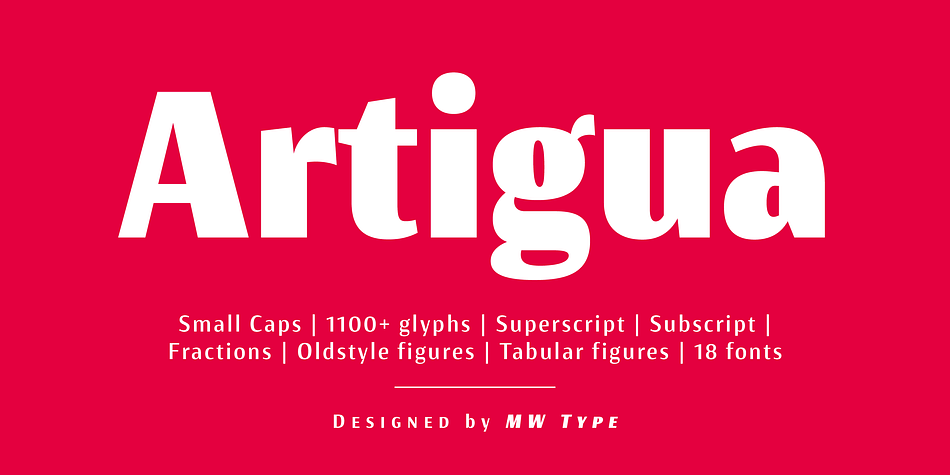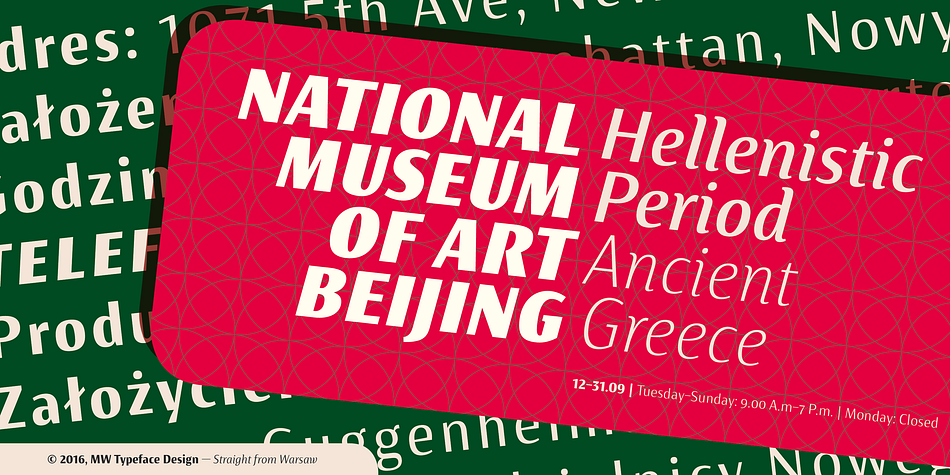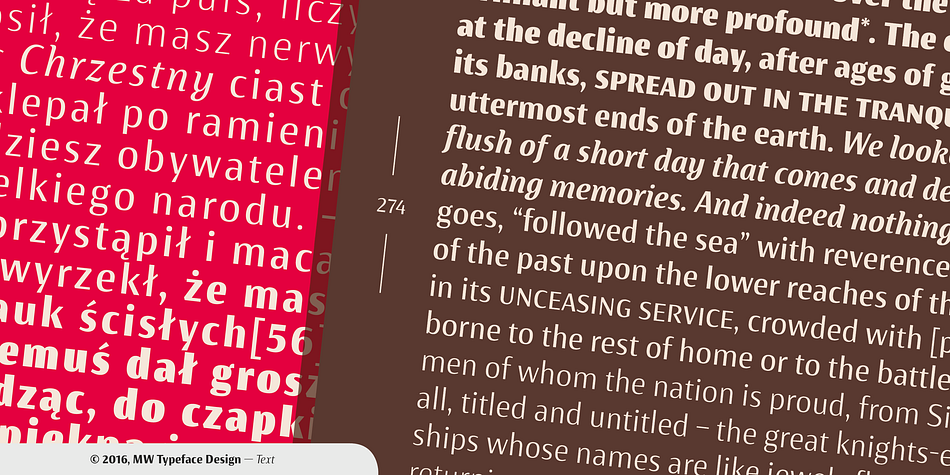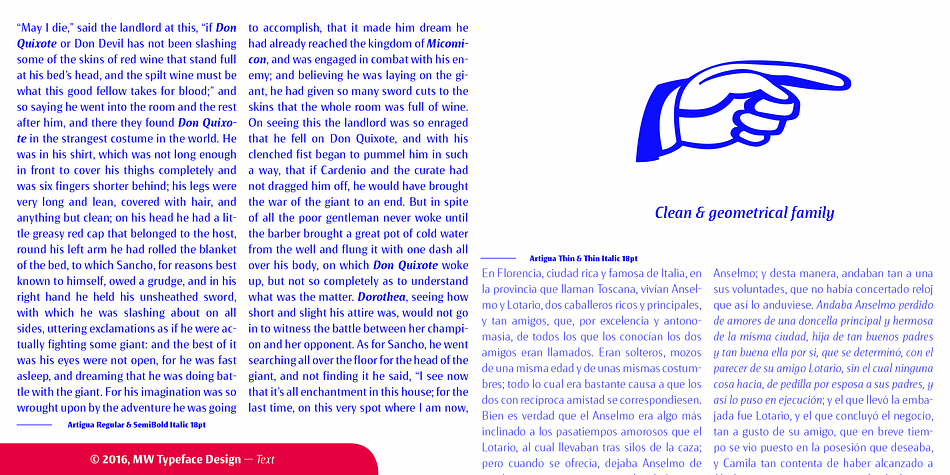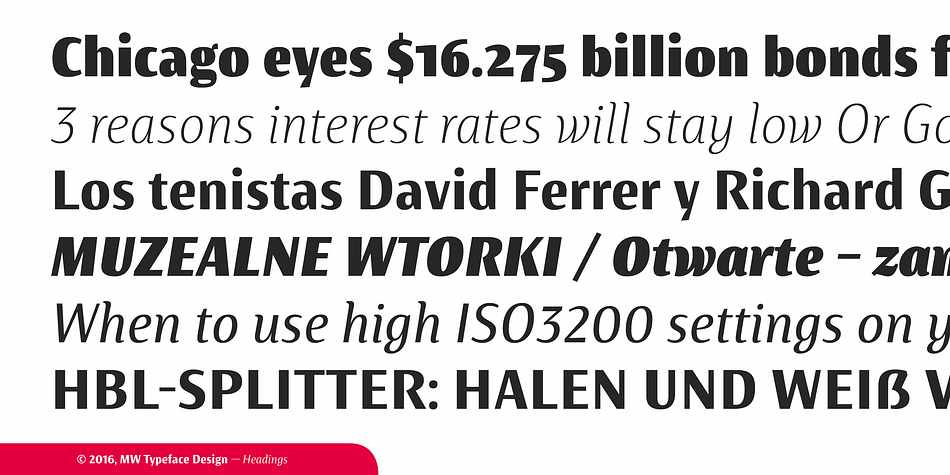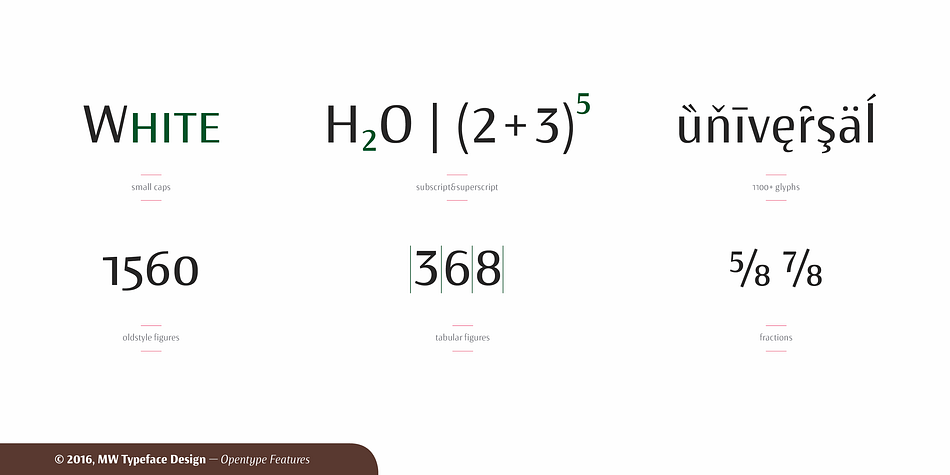
Designed by Maciej Włoczewski, Artigua is a sans serif font family. This typeface has eighteen styles and was published by Maciej Włoczewski.
High contrast, sharp endings and geometrical shapes – these are the main features of Artigua. The relation of vertical and horizontal lines reduces with weight – this makes regular weight appropriate for longer texts and black ideal weight for headings. Whole family contains small caps, subscript, superscript, italics, fractions old style and tabular figures.
Over 1100 glyphs and 18 fonts makes a perfect match for clean and minimal projects. With Artigua it’s super easy to prepare adverts, books or web headings.